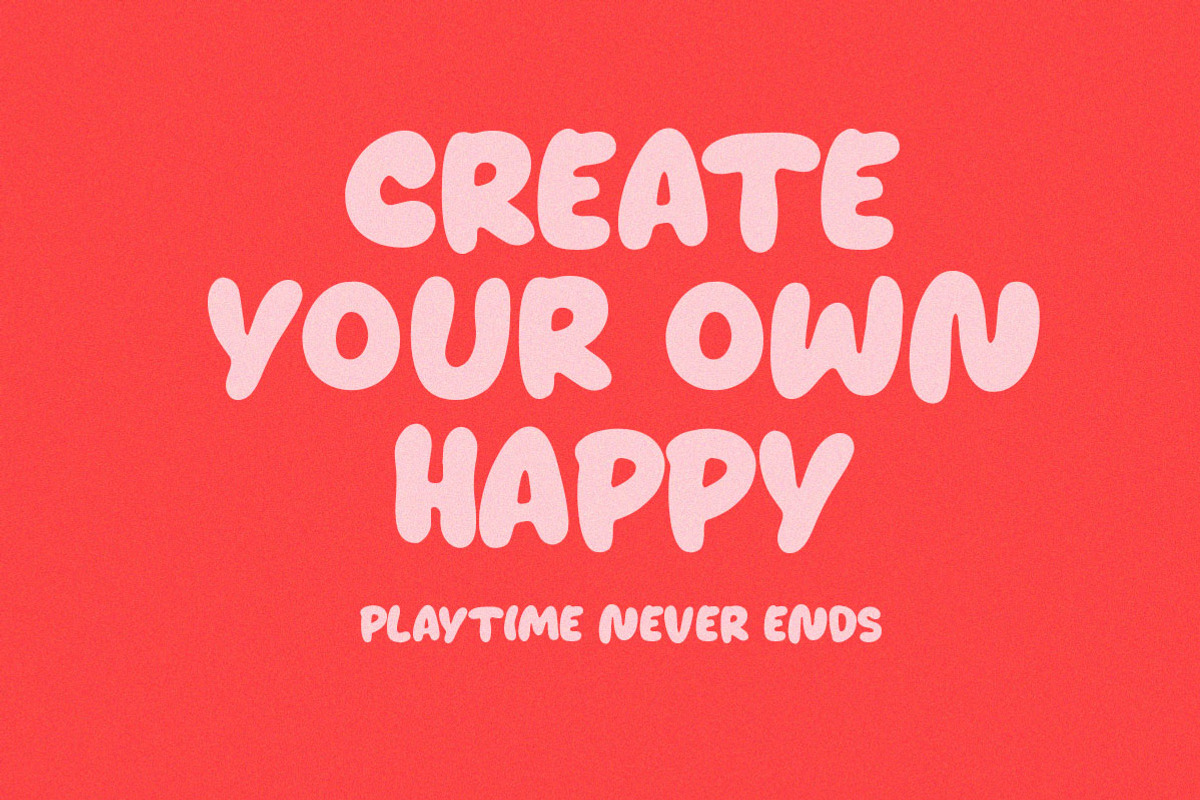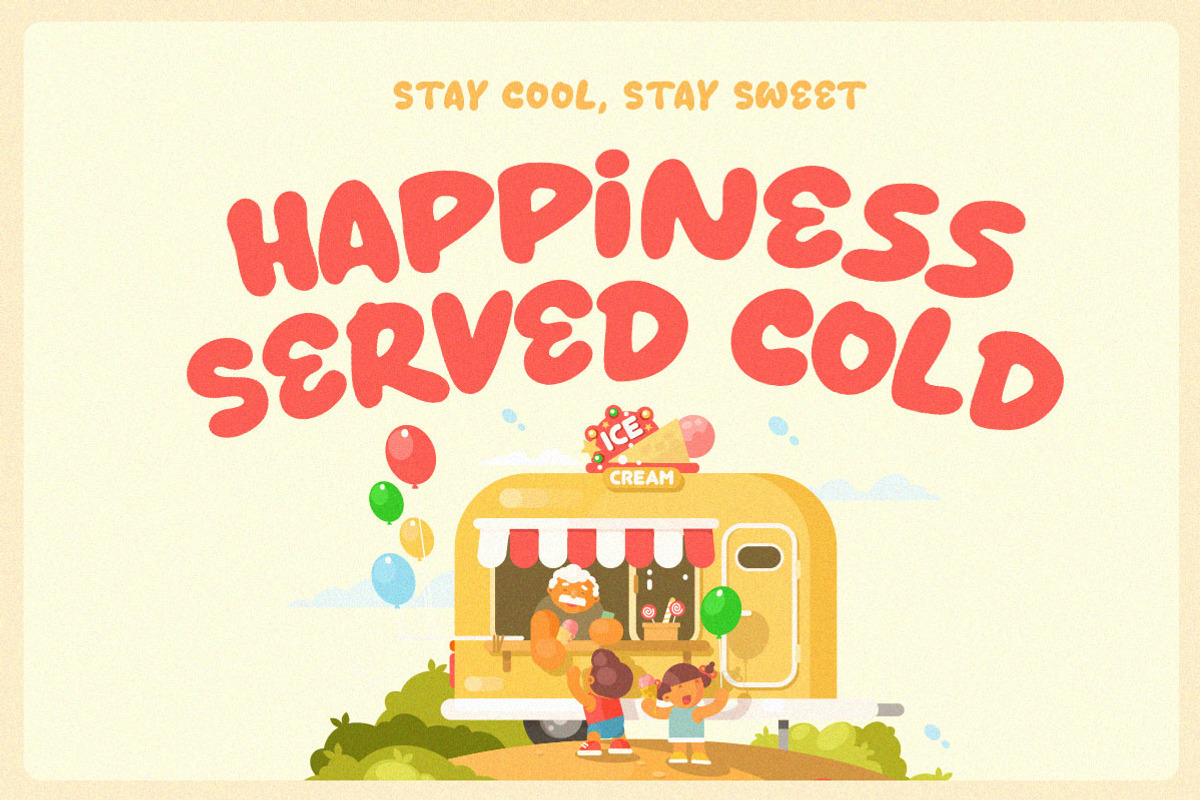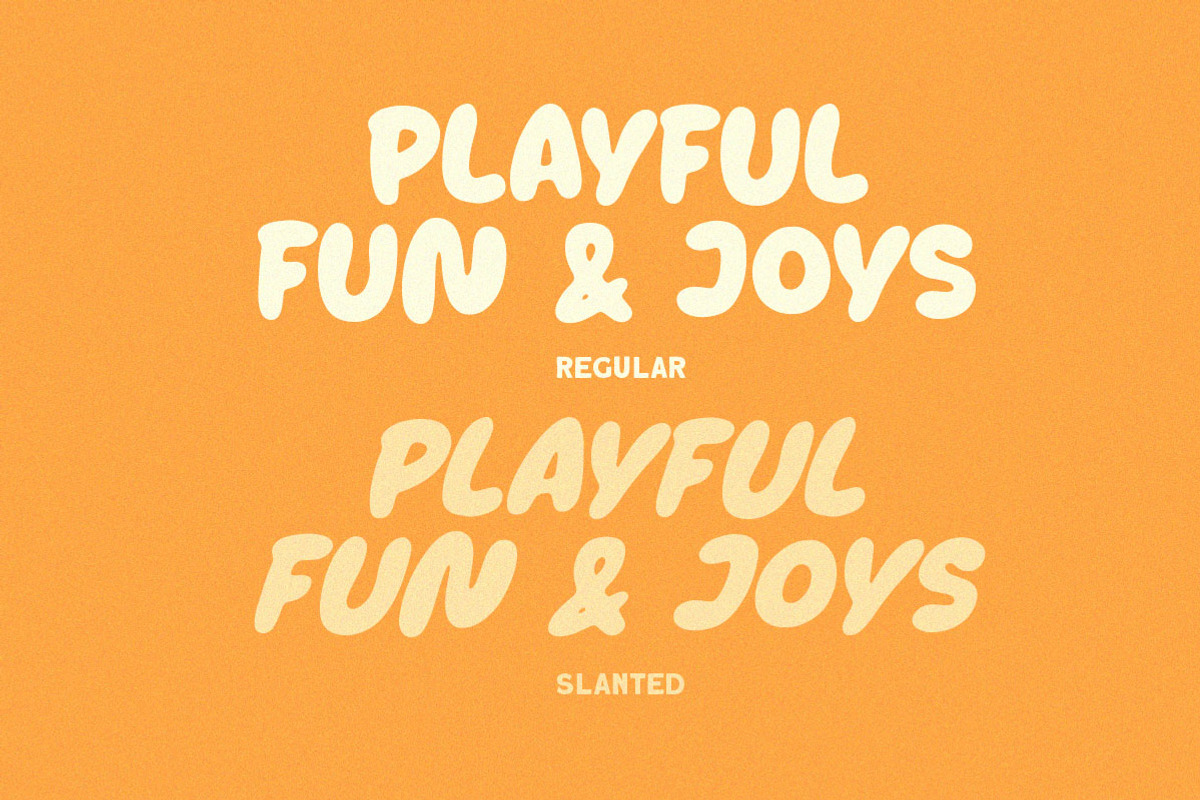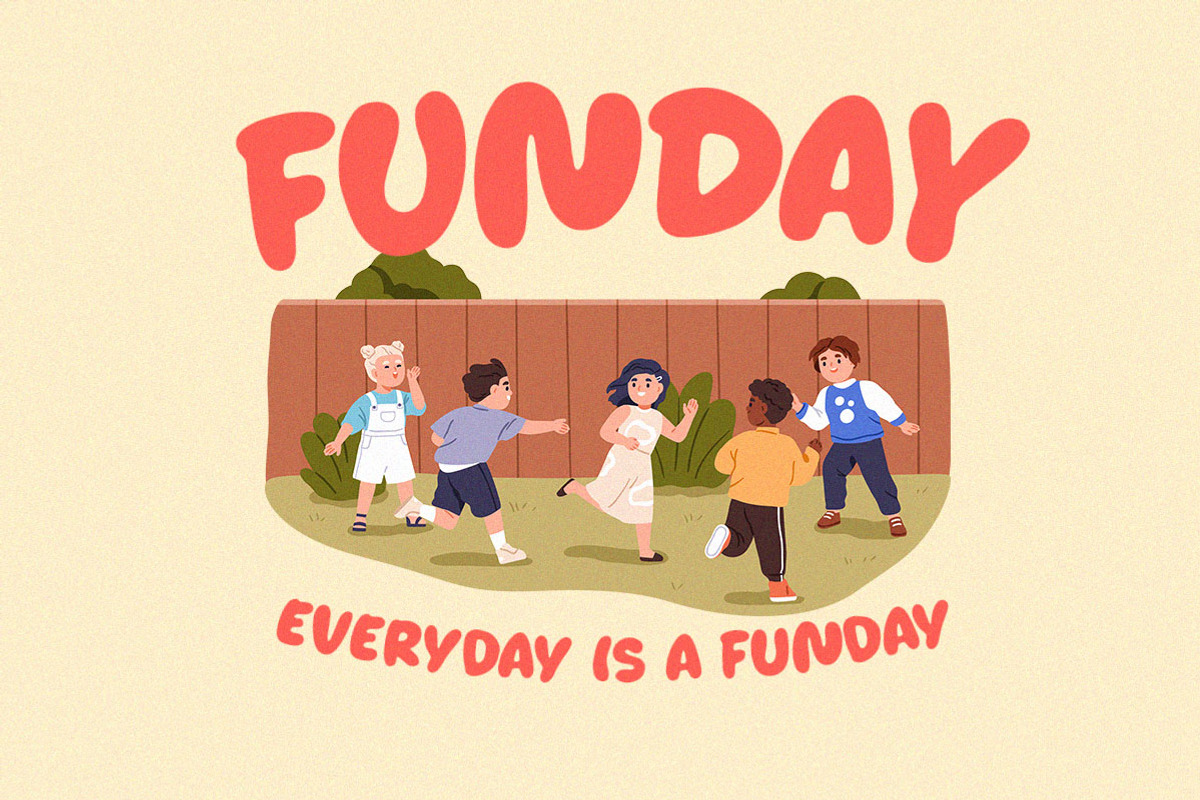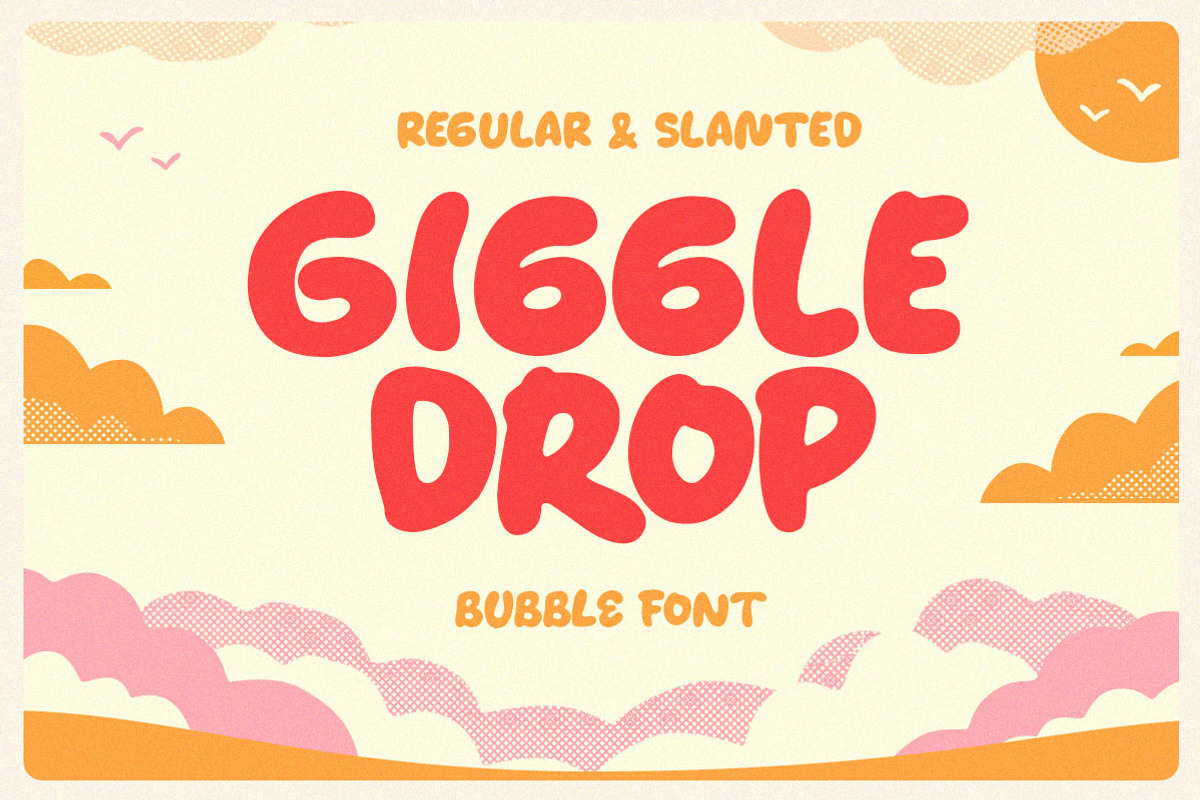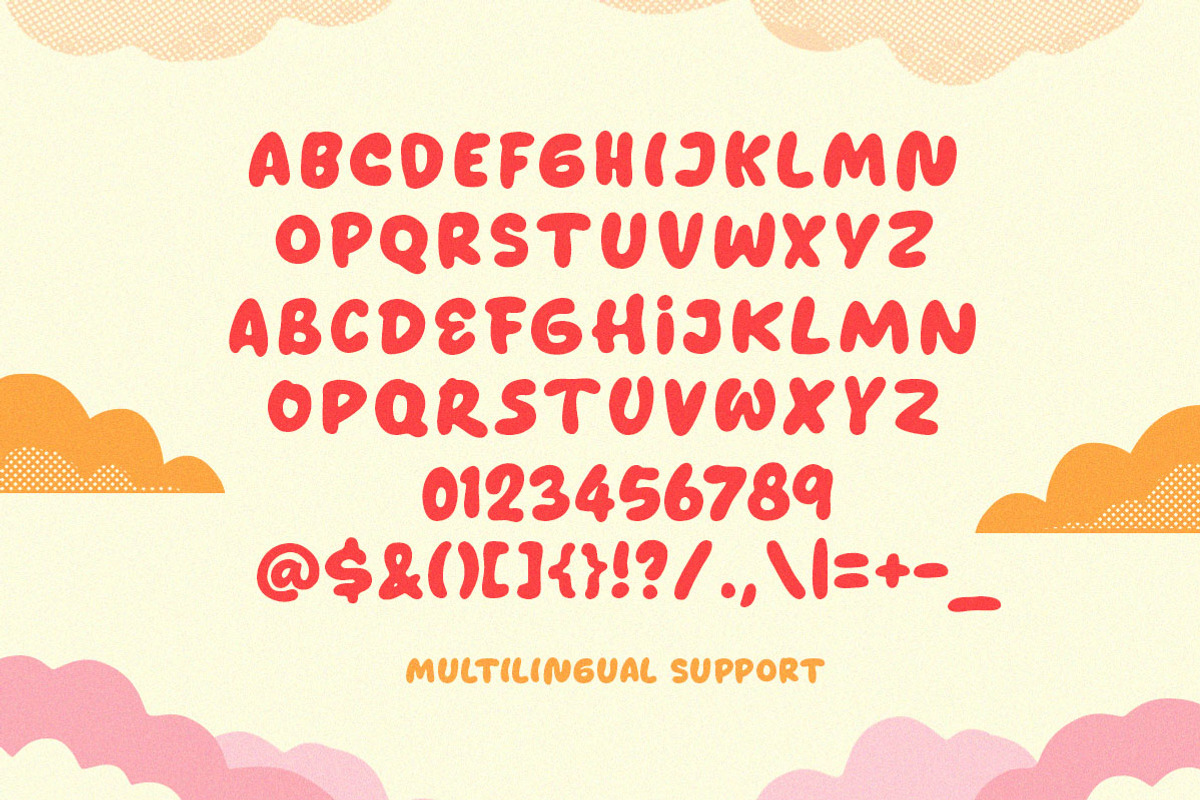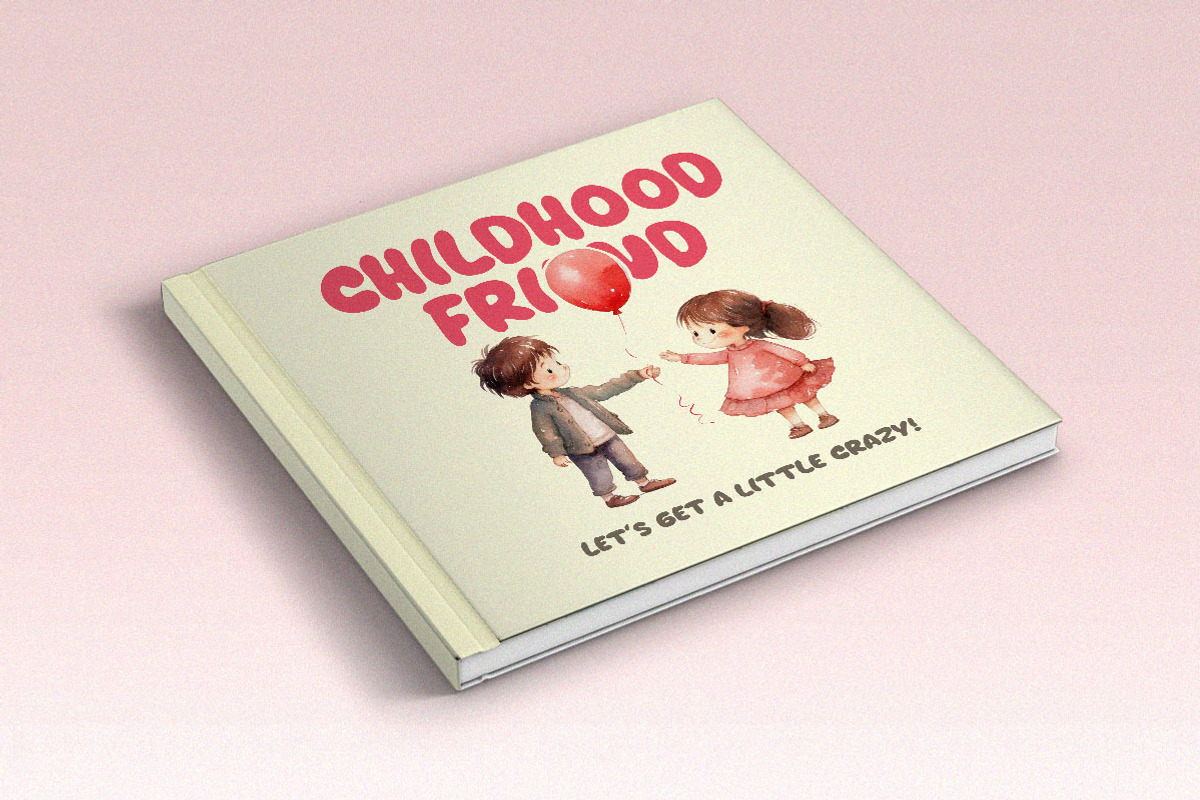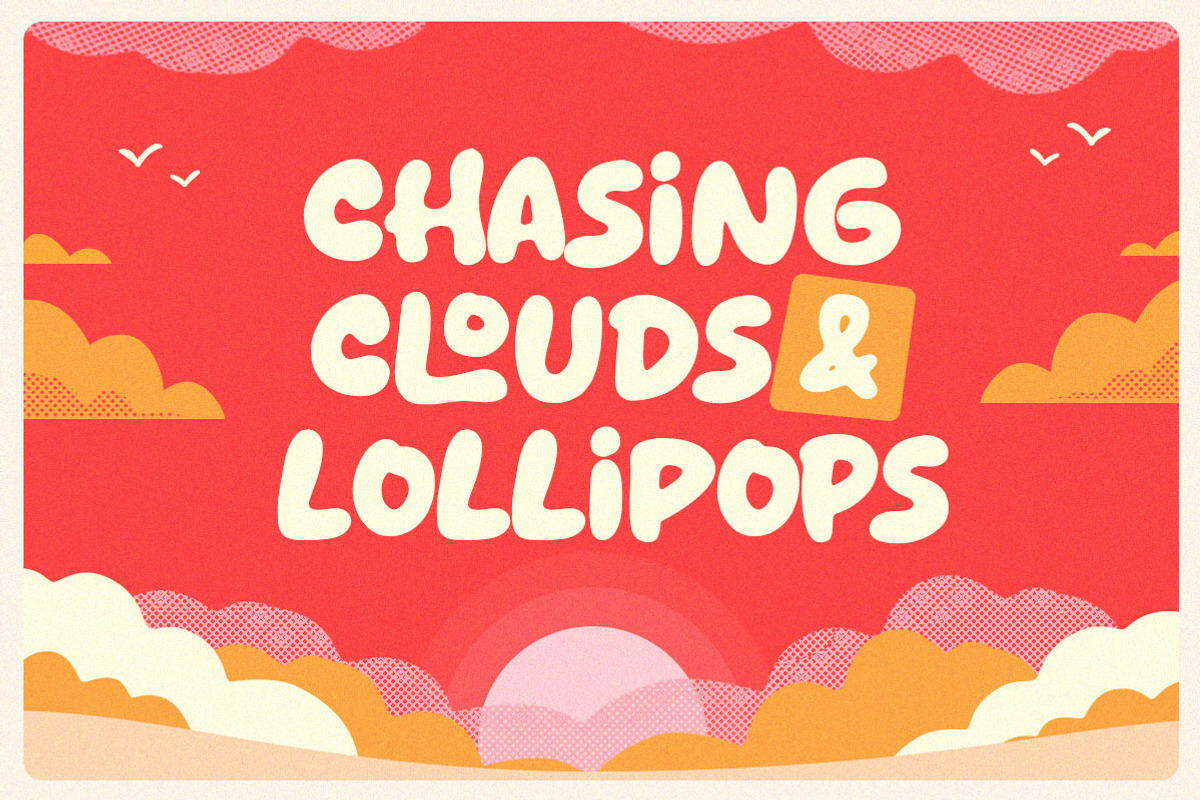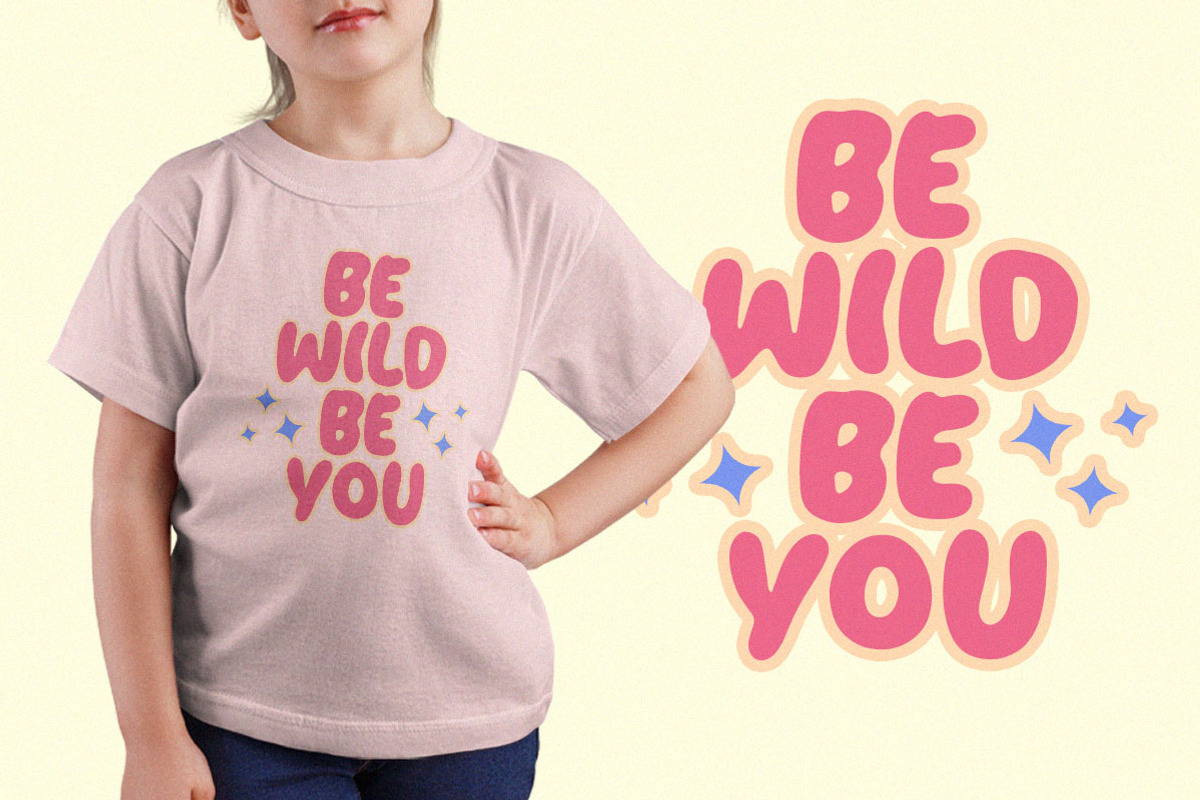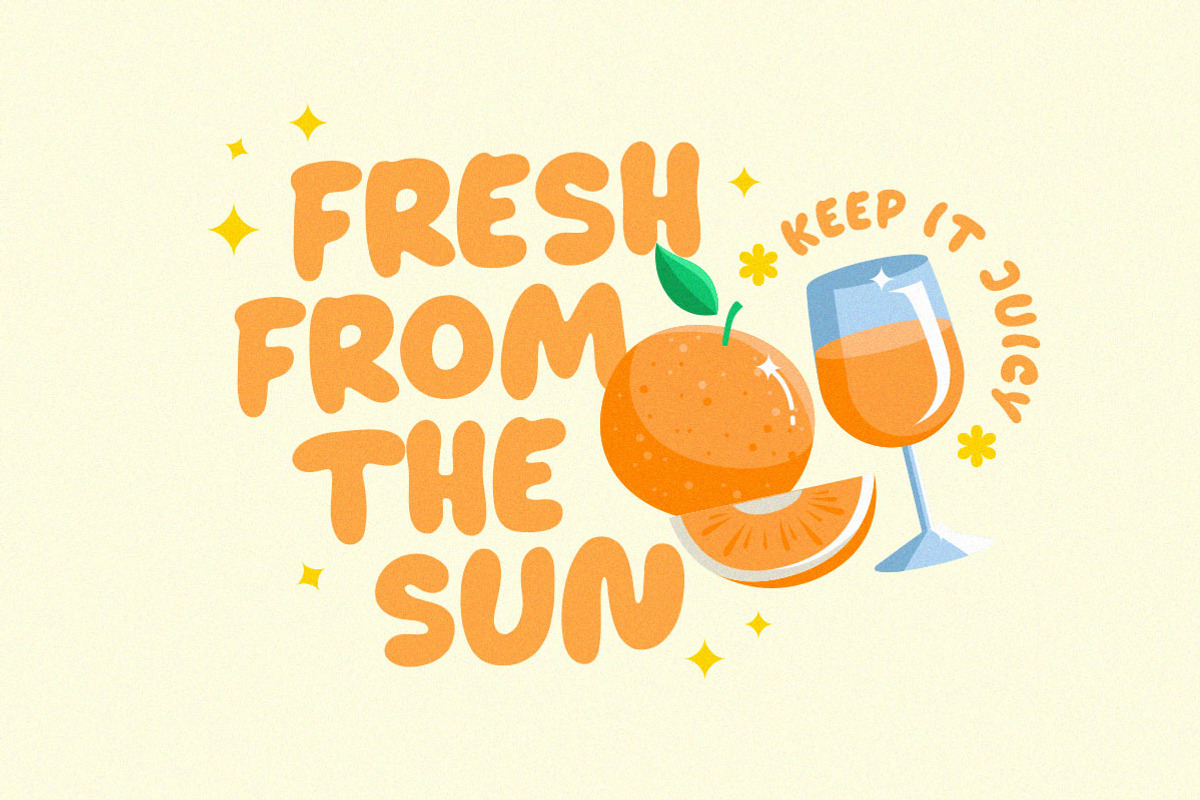
Giggle Drop Bubble Font
Giggle Drop is a playful bubble font that bursts with joy and friendliness. Its rounded, chunky letterforms and smooth curves bring a fun and cheerful energy to any design. Available in both regular and slanted styles, this font is perfect for children’s products, posters, packaging, and anything that needs a splash of whimsy.